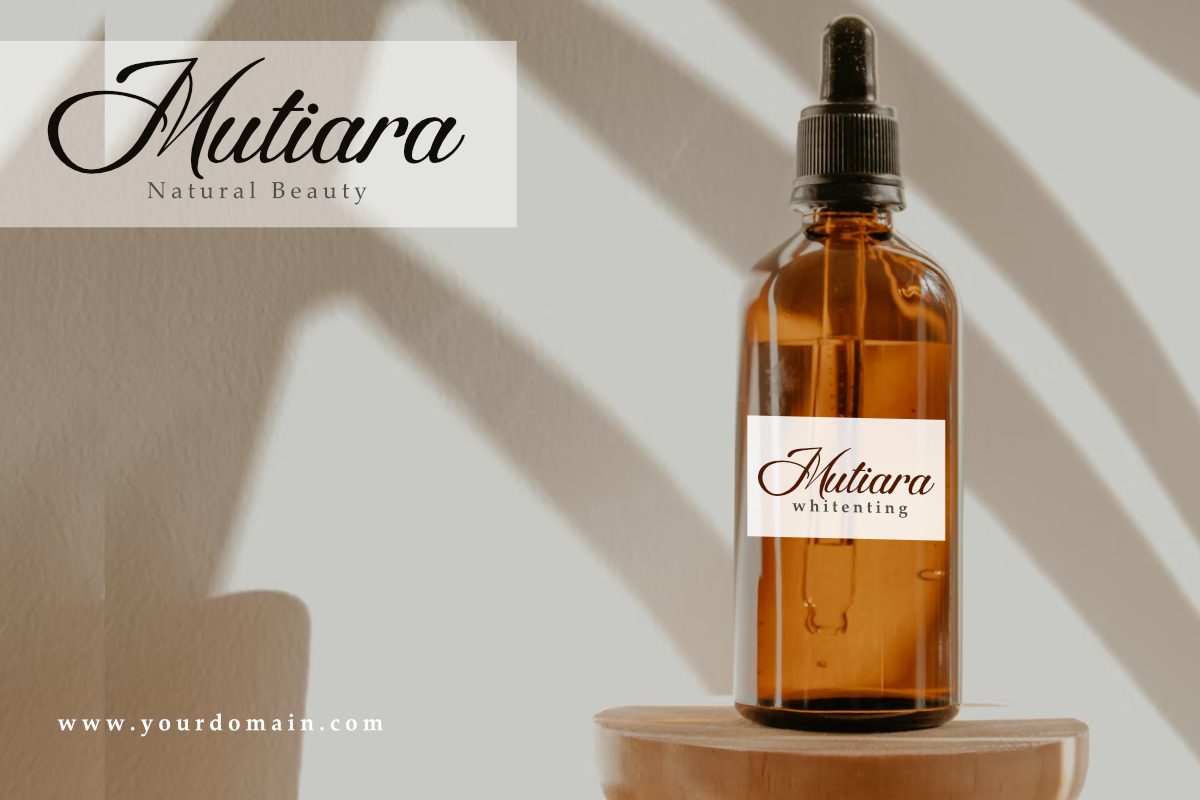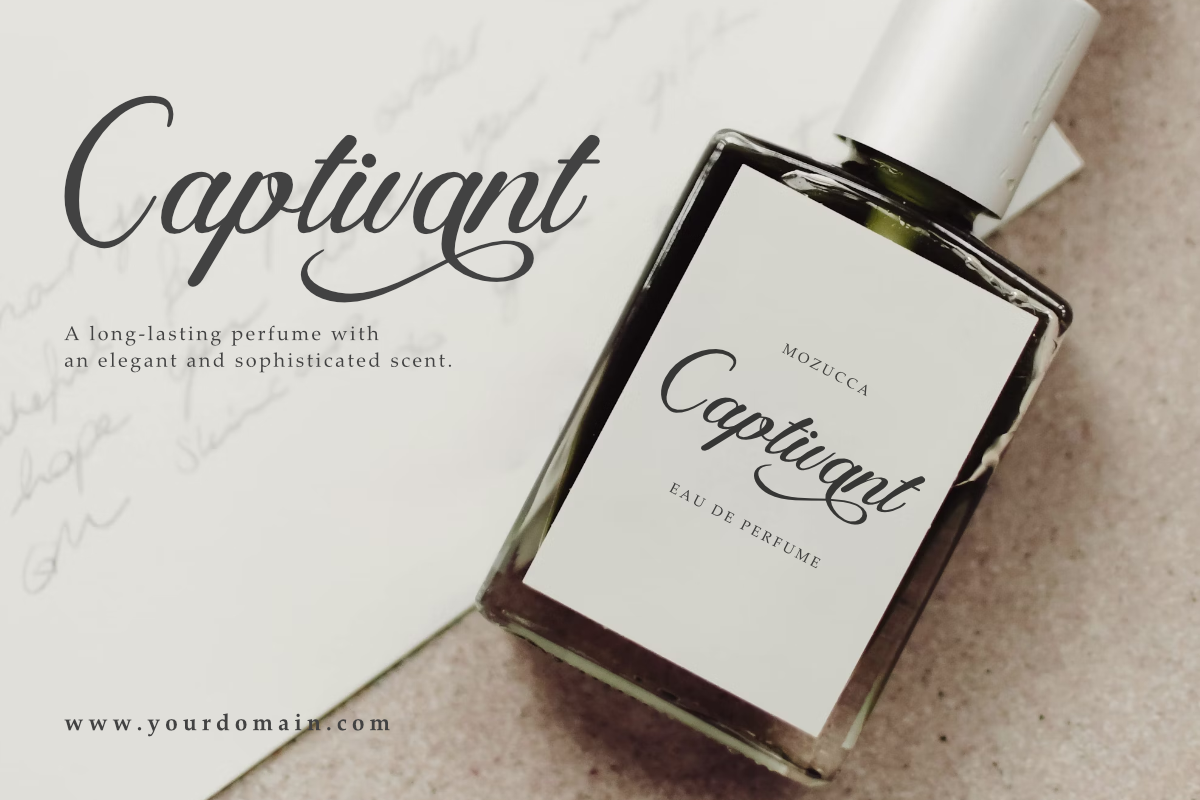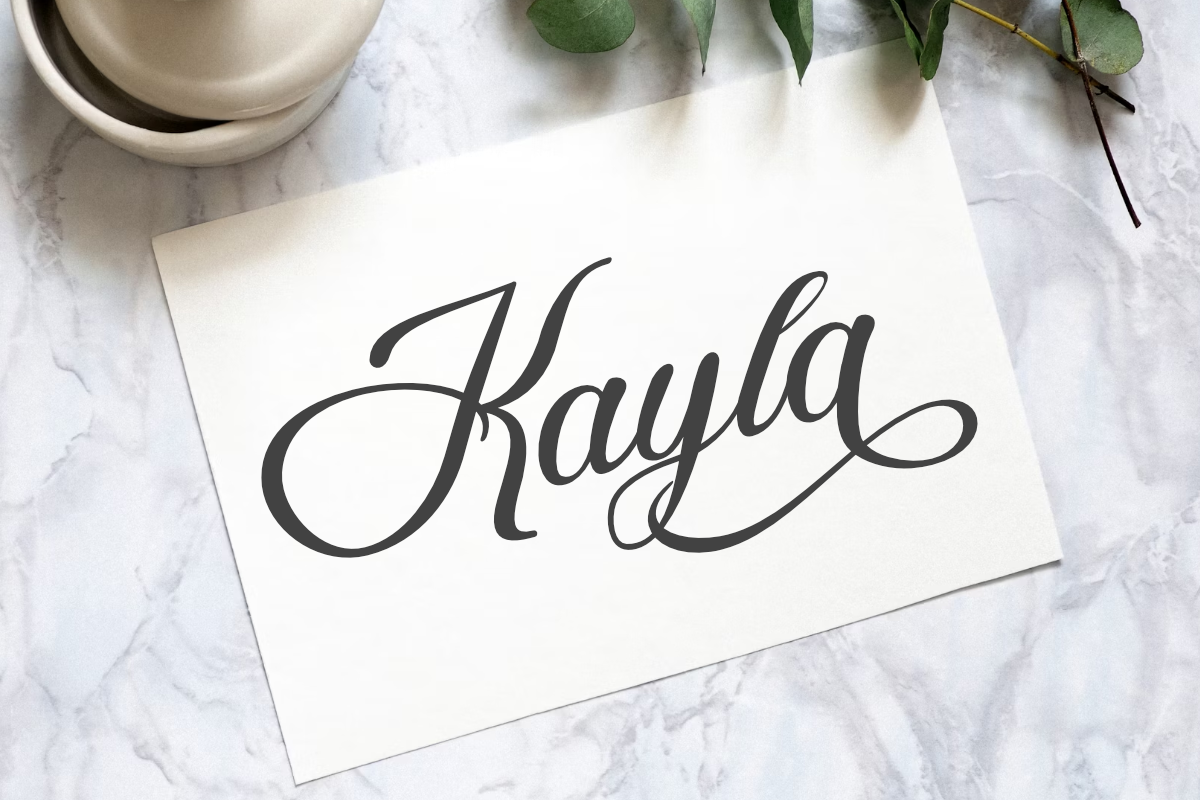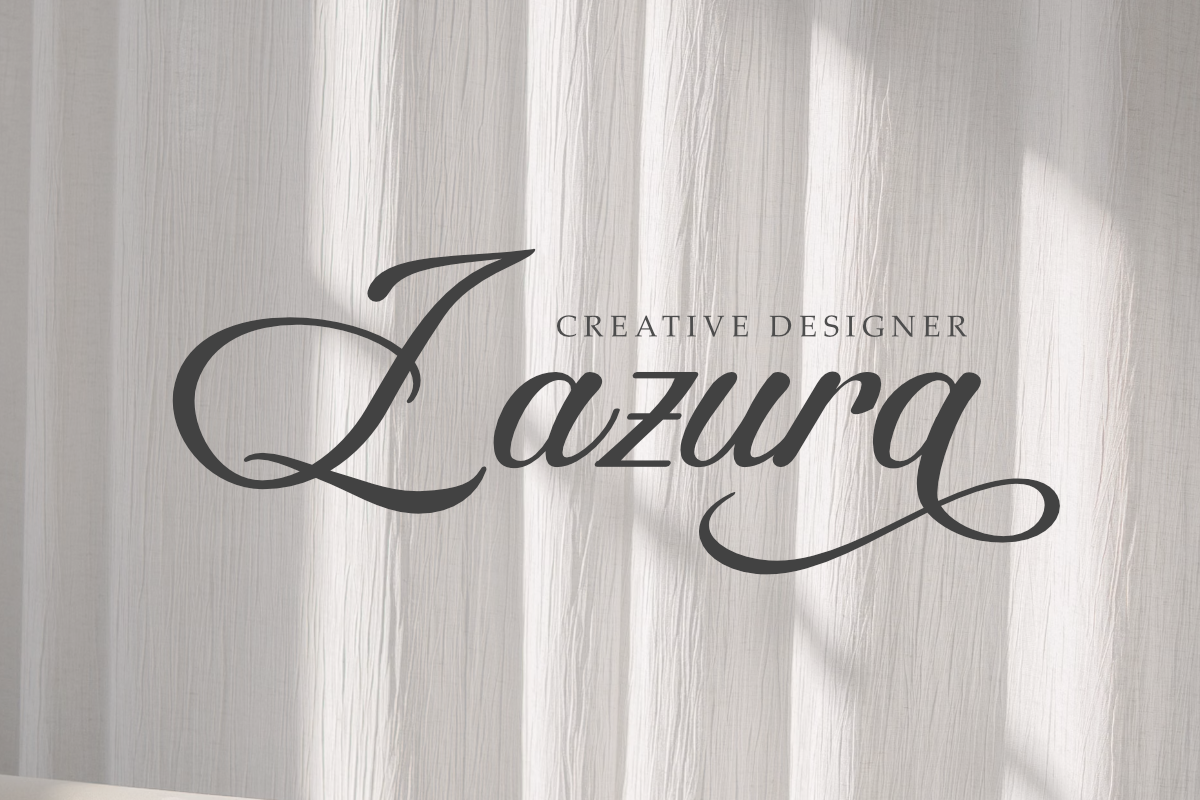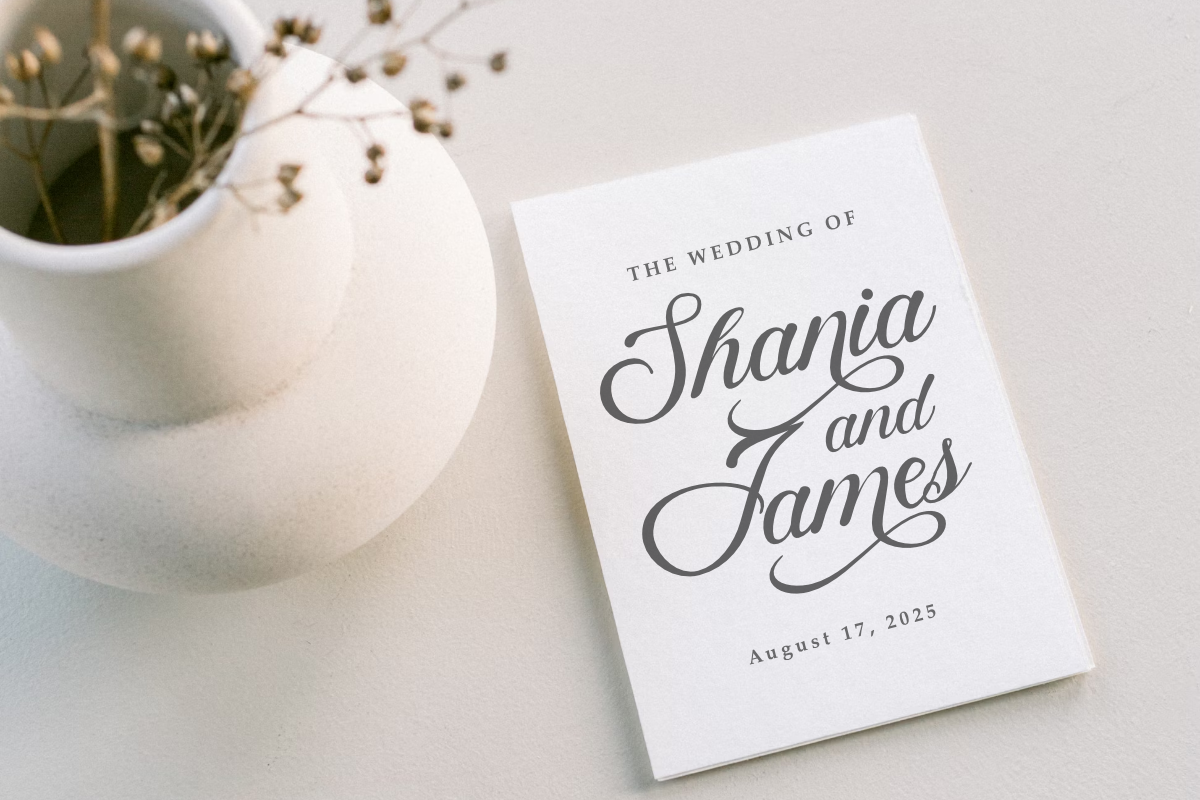
Romantic - Elegant Calligraphy
Romantic is a beautiful and elegant handwritten font with a soft and modern touch. Its smooth strokes and stylish curves make it ideal for branding, logos, invitations, social media, product packaging, and more. This beauty handwritten font is perfect for feminine and creative projects, bringing warmth and sophistication to every design.